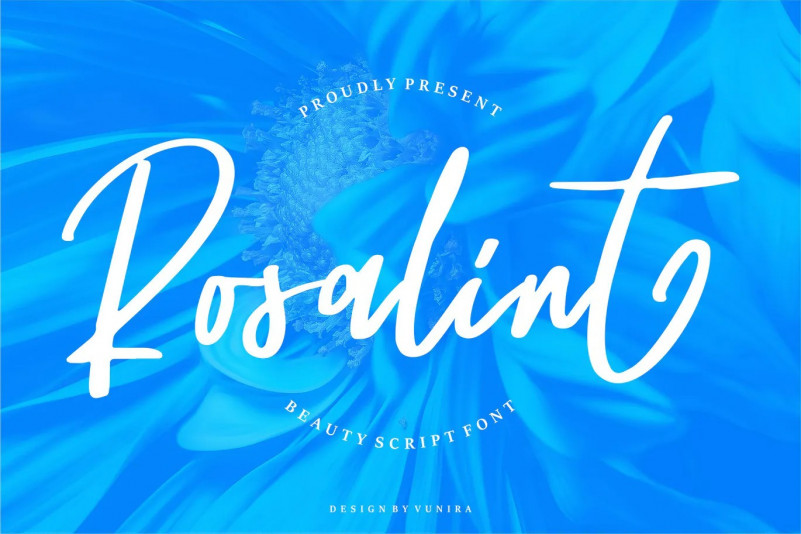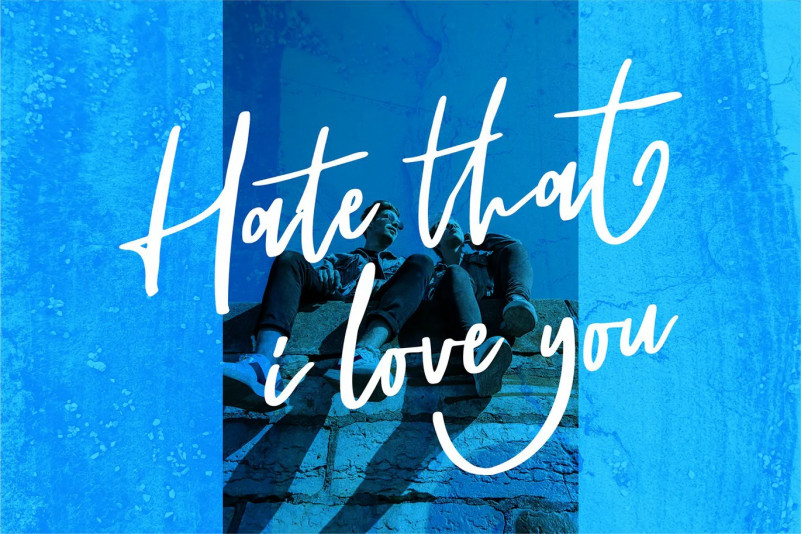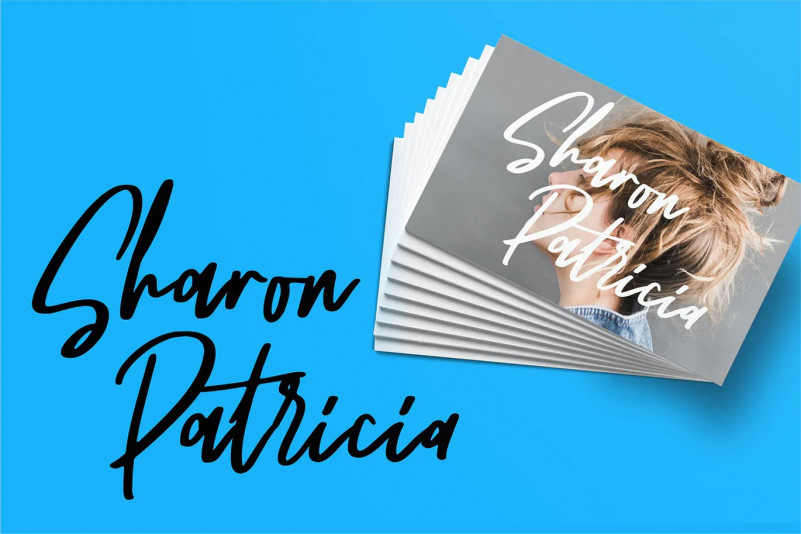
Rosalint Beauty Font
Rosalint | Beauty Script Font with a calligraphy style, So beautiful on invitation like greeting cards, branding materials, business cards, quotes, posters, and more!